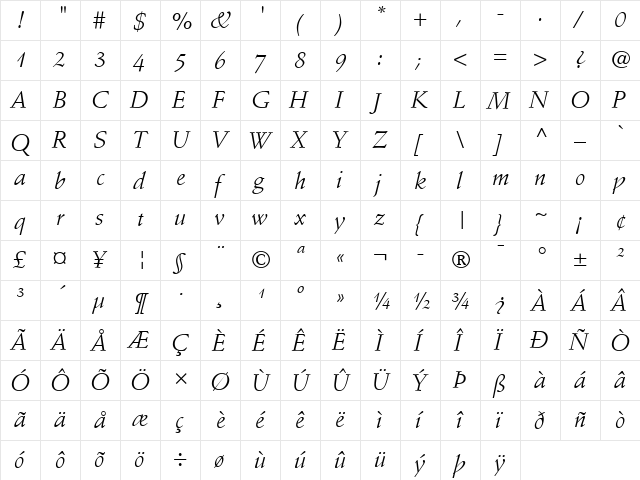
StempelSchneidler LT Italic
Design Context for StempelSchneidler LT Typeface
StempelSchneidler LT is a composed and adaptable typeface that performs quietly and consistently across a wide range of design contexts. The slanted form adds forward momentum and visual energy. The delicate stroke weight brings airiness and refinement to layouts.
Pro Tip: Try StempelSchneidler LT for annotation and caption copy alongside an upright companion — the contrast in angle creates a dynamic but ordered typographic system.